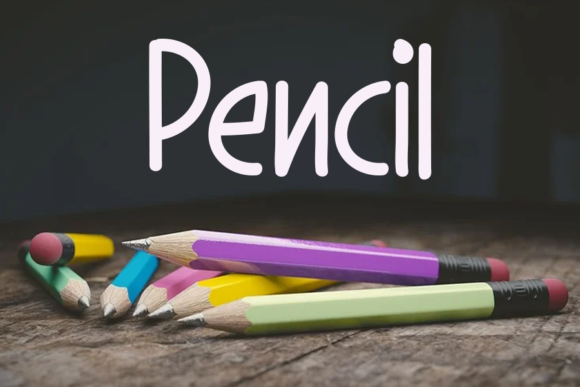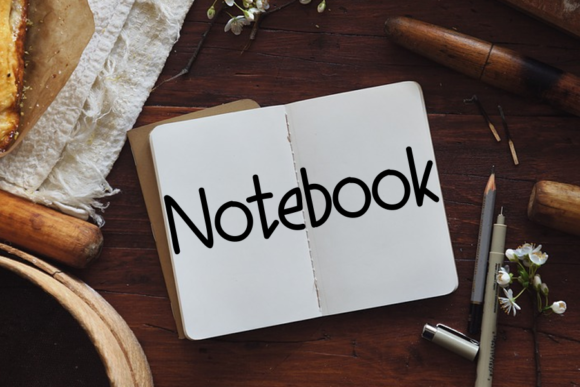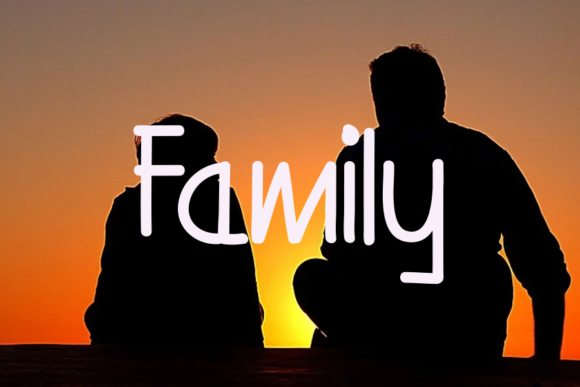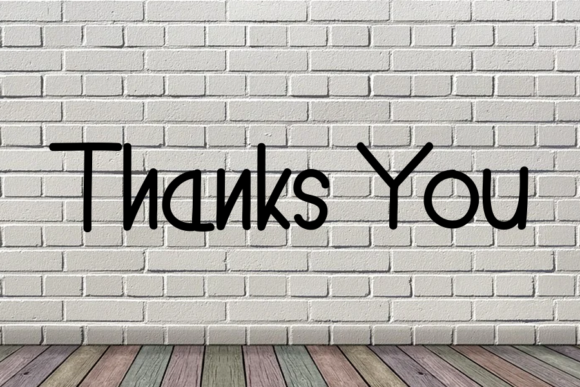
About Make Letters Font
Make Letters is a cute, simple, and neat handwritten font that adds a touch of charm and versatility to your designs. With its clean and legible style, this font can easily be matched to a wide range of projects, making it a valuable addition to your creative toolbox.
The adorable and well-crafted letterforms of Make Letters bring a sense of playfulness and simplicity to your designs. Whether you’re working on logos, branding materials, invitations, posters, social media graphics, or any other project that requires a cute and clean look, this font will elevate your designs and make them stand out.
Make Letters’ simplicity and versatility make it a great choice for various applications. It can be easily paired with different design elements, allowing it to adapt to different project styles and themes. Whether you want to create a minimalistic and modern logo, design clean and elegant invitations, or craft eye-catching posters with a touch of cuteness, Make Letters will provide you with the flexibility and legibility you need.
Embrace the cuteness, simplicity, and neatness of Make Letters and let it enhance your creative ideas. Incorporate this font into your designs, and you’ll see how it makes them stand out and brings a delightful and charming touch to your projects.